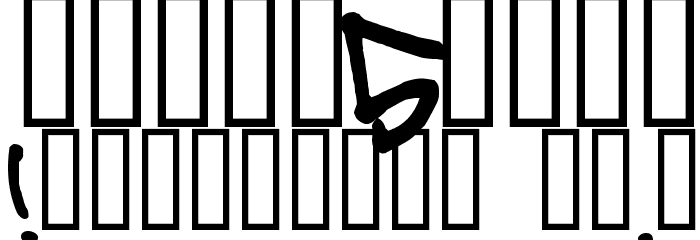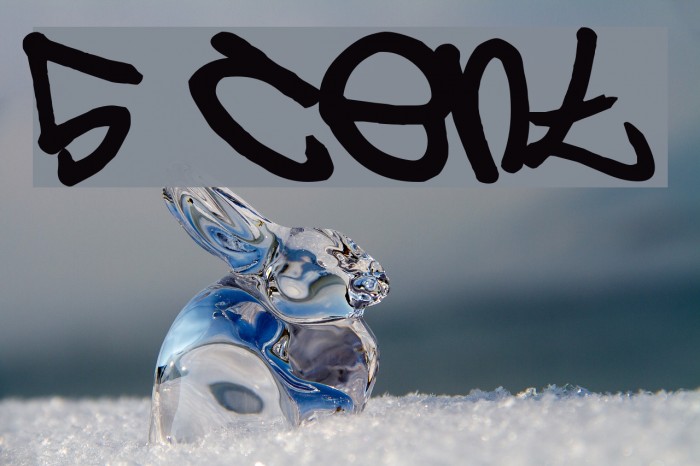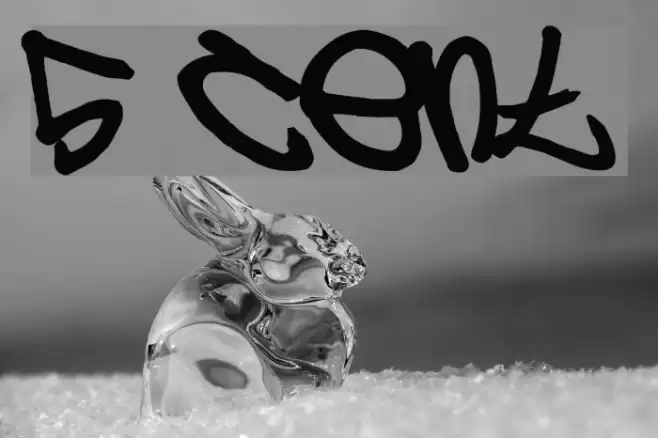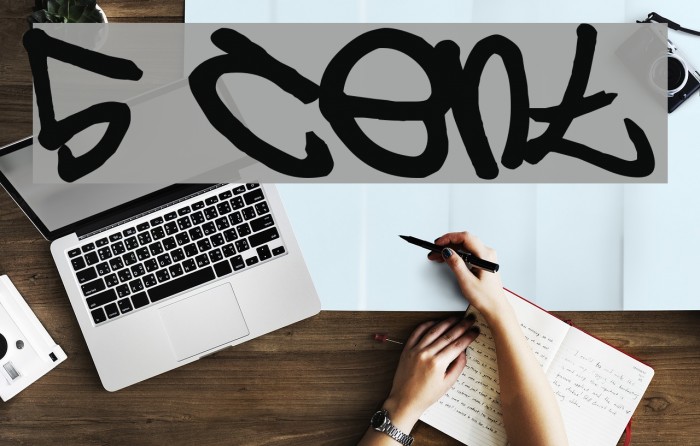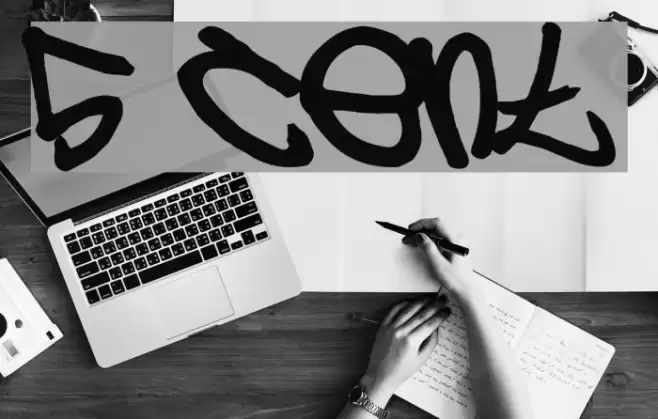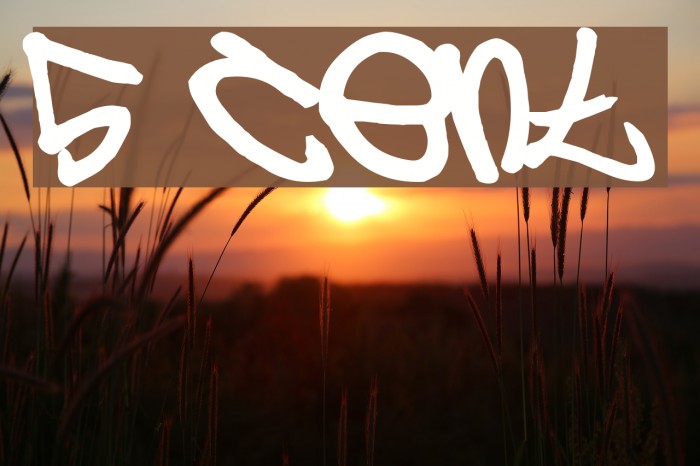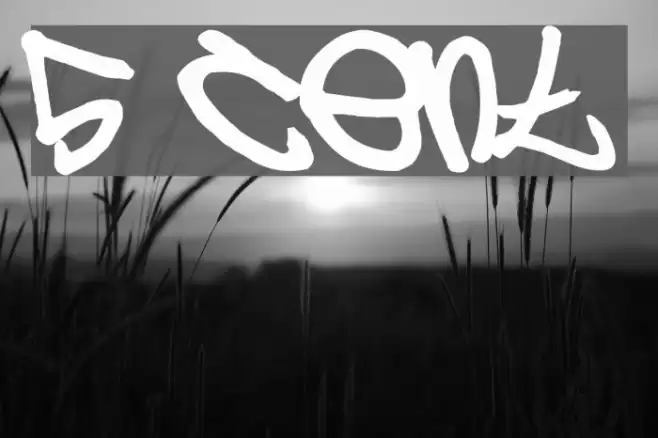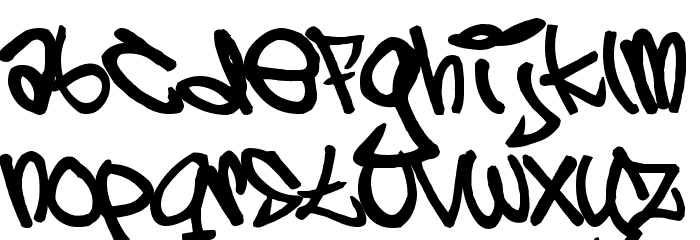
5 cent Font
5 cent Description
This font features a bold and expressive handwritten style, characterized by its dynamic and fluid strokes. The letters are crafted with a sense of movement and energy, giving them a lively appearance. The lowercase letters exhibit a playful and informal aesthetic, while the uppercase letters maintain a consistent flow. The overall design is reminiscent of graffiti or street art, making it ideal for projects that require a youthful and edgy vibe. The font's unique personality is further enhanced by its irregular shapes and varying stroke widths, which add to its charm and individuality.
| Use Case | Logos, Headlines, Posters |
| Proposed Projects | Ideal for street art designs, edgy branding, music album covers, and creative posters. |